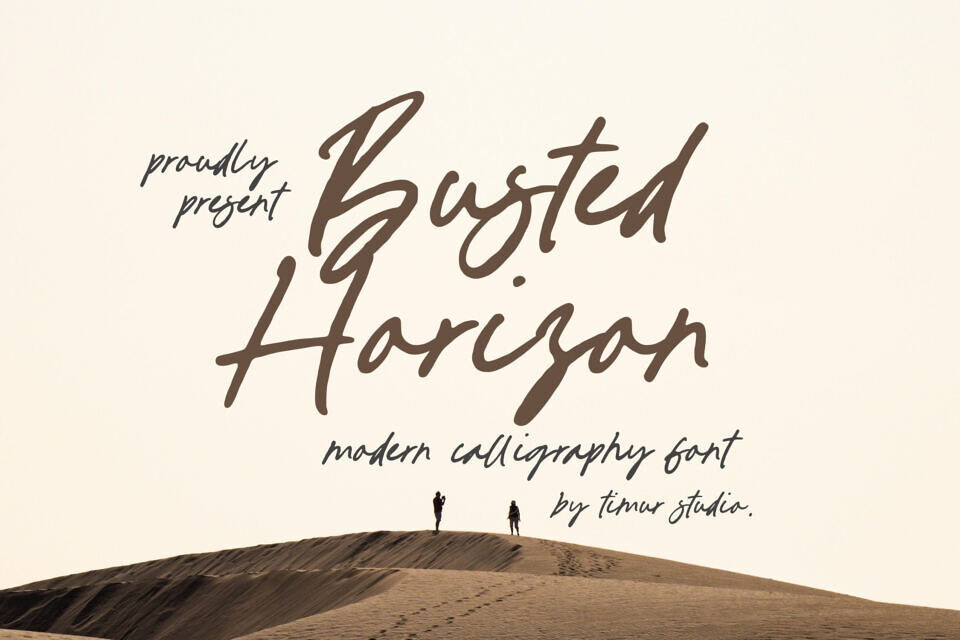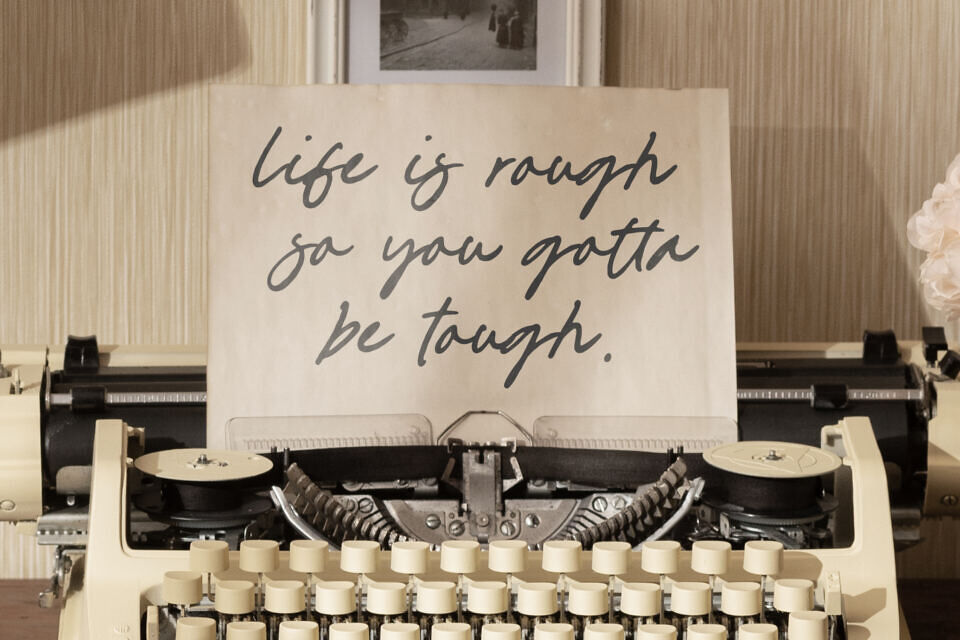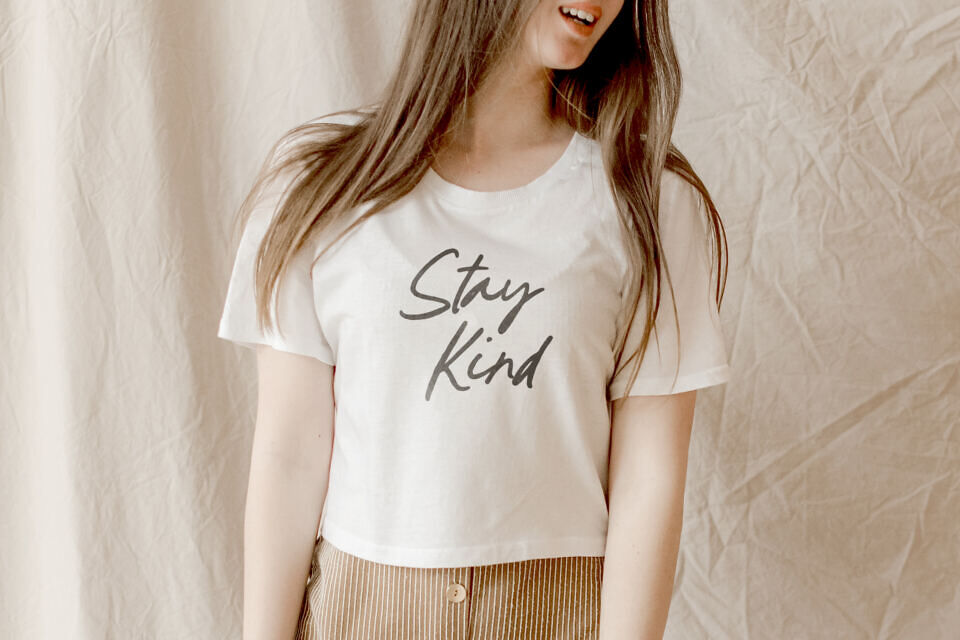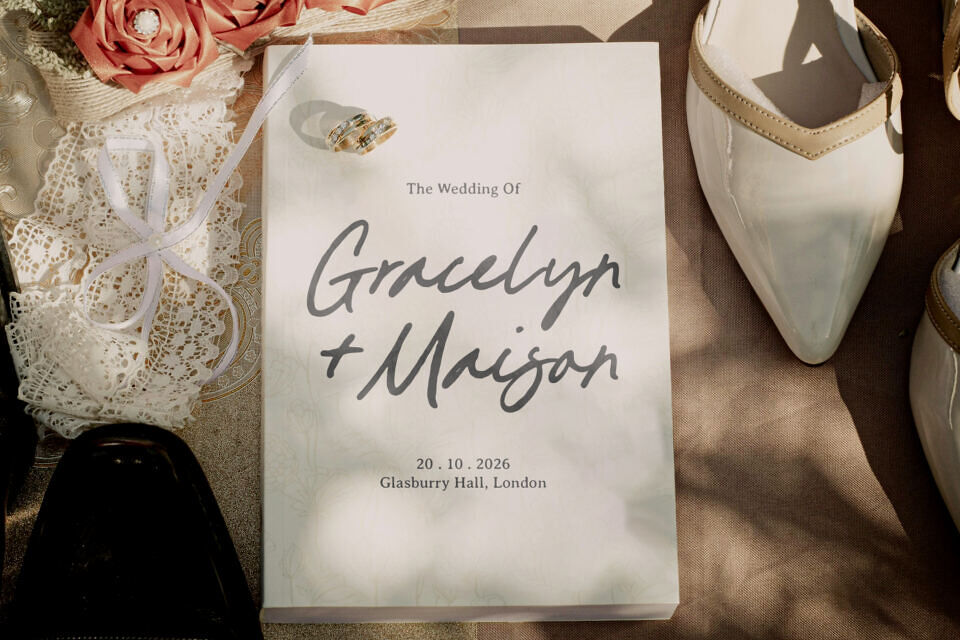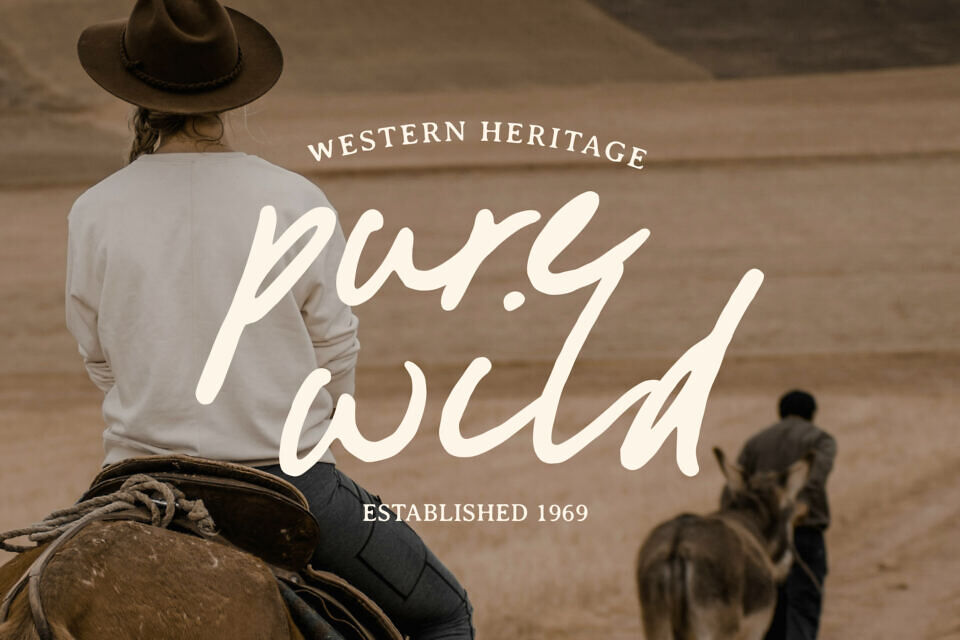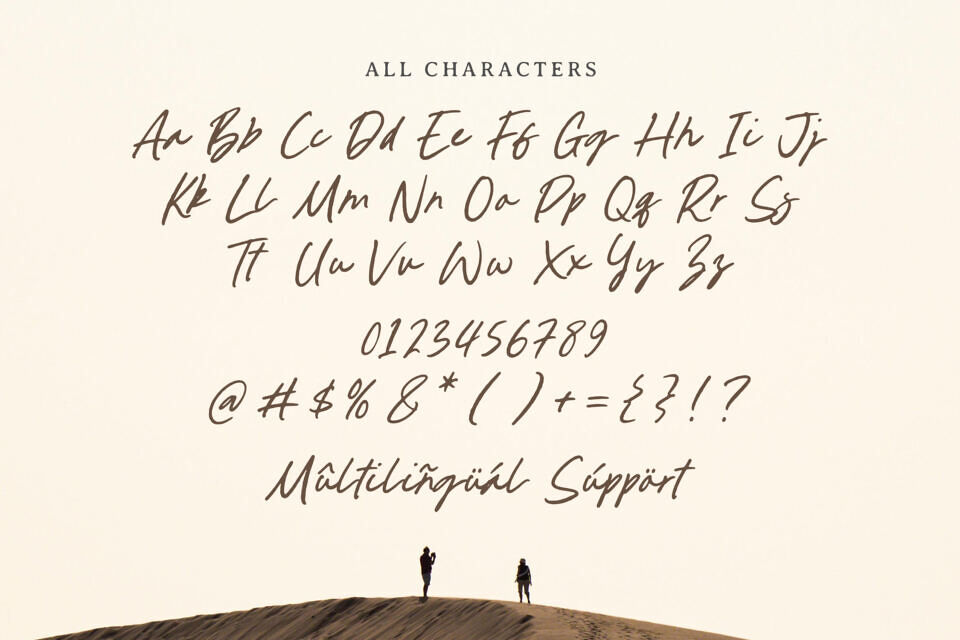
Busted Horizon is a sleek, modern calligraphy typeface that blends fluid, handbrushed strokes with a contemporary edge. It features graceful, sweeping curves balanced by clean, confident terminals. Ornamented with stylish ligatures and smooth transitions, it’s designed to feel both and polished.